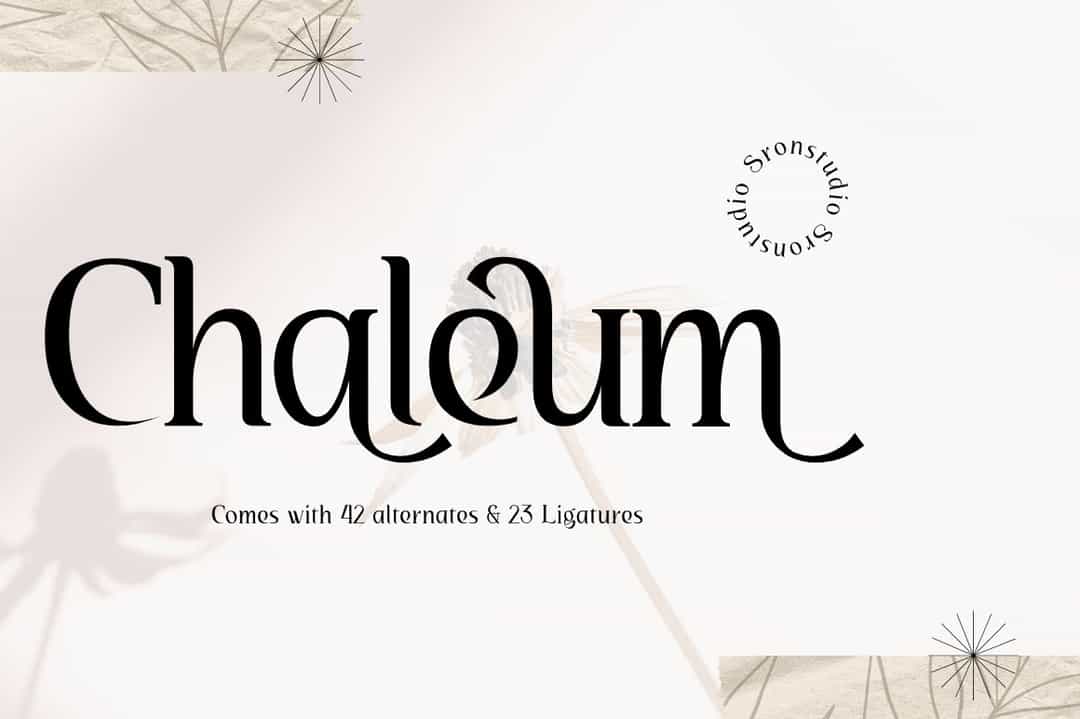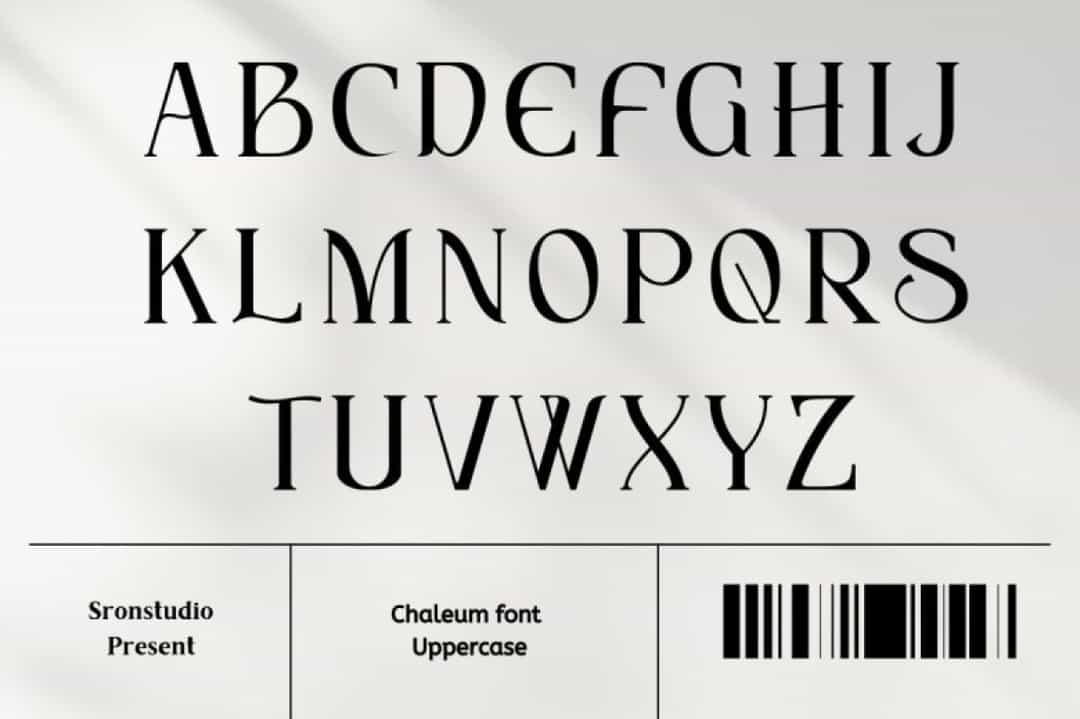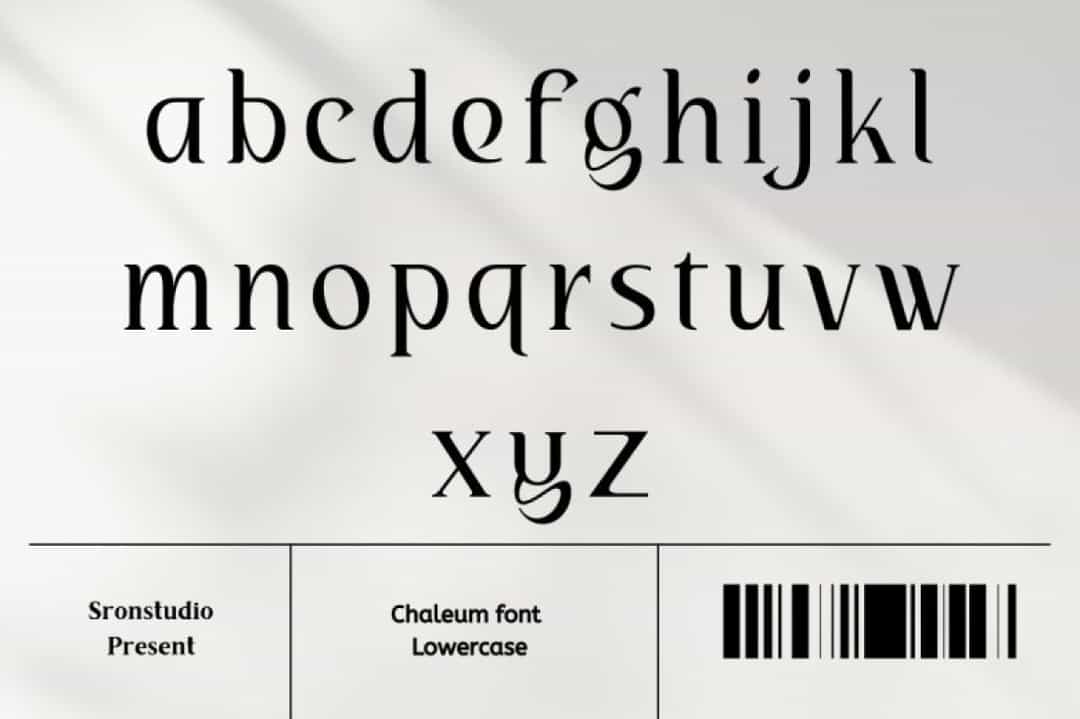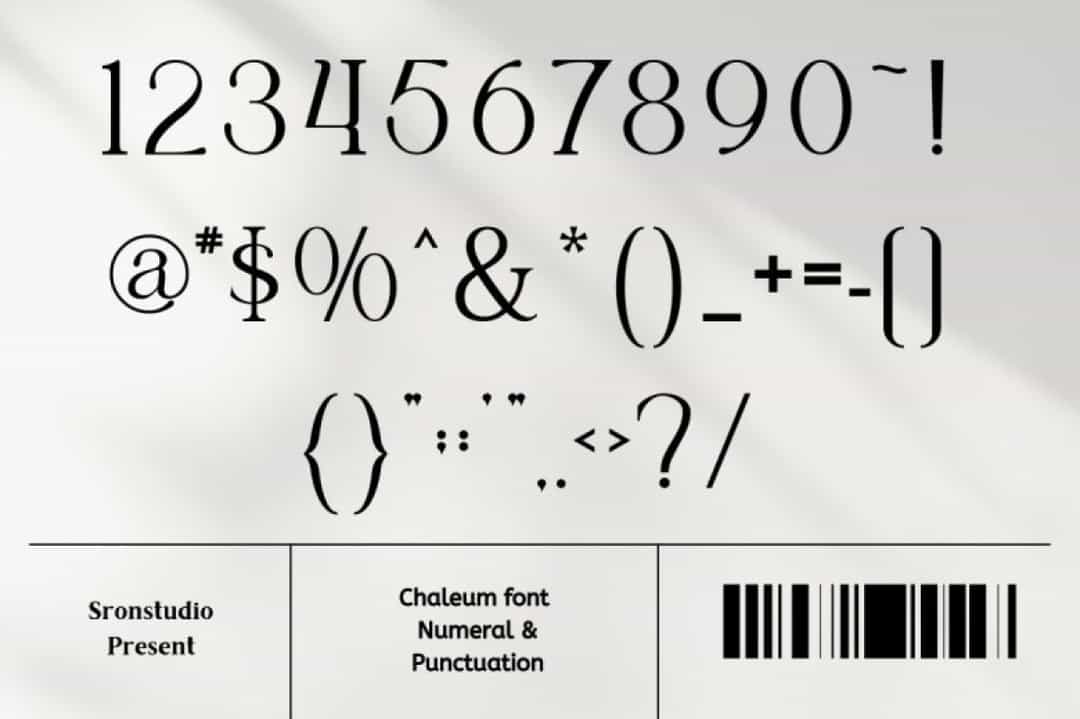
Discover Chaleum Font, part of the Serif Display collection—a versatile and unique font perfect for adding a personal touch to your projects. Download it for free and enjoy crafting designs with style, from invitations to social media posts. This font is available exclusively for personal use, giving you the freedom to create without limits. Unlock your creativity with Chaleum Font today!
Chaleum Display Font has an elegant and contemporary aesthetic. It can be used for invitations, branding stationery, wedding themes, Social media posts, advertisements, packaging of products and labels watermarking photos photography special occasions events etc.